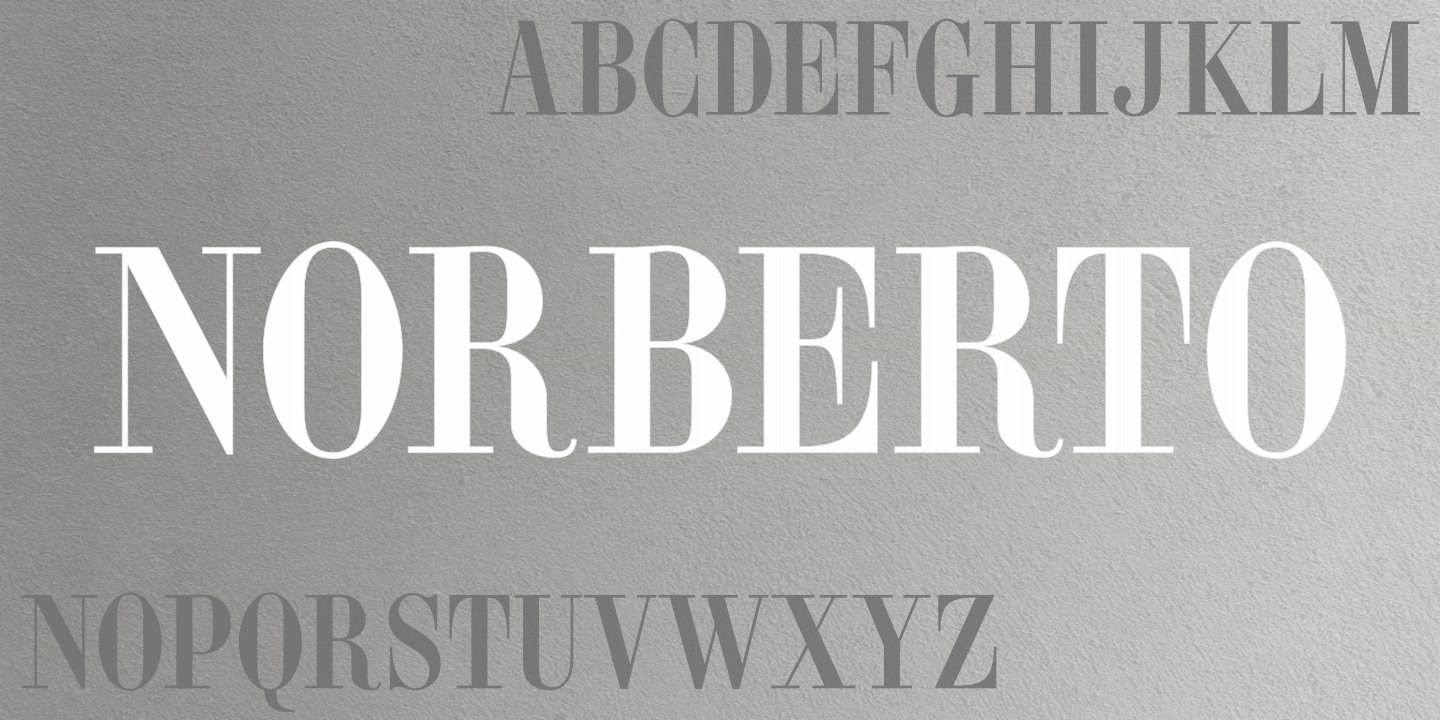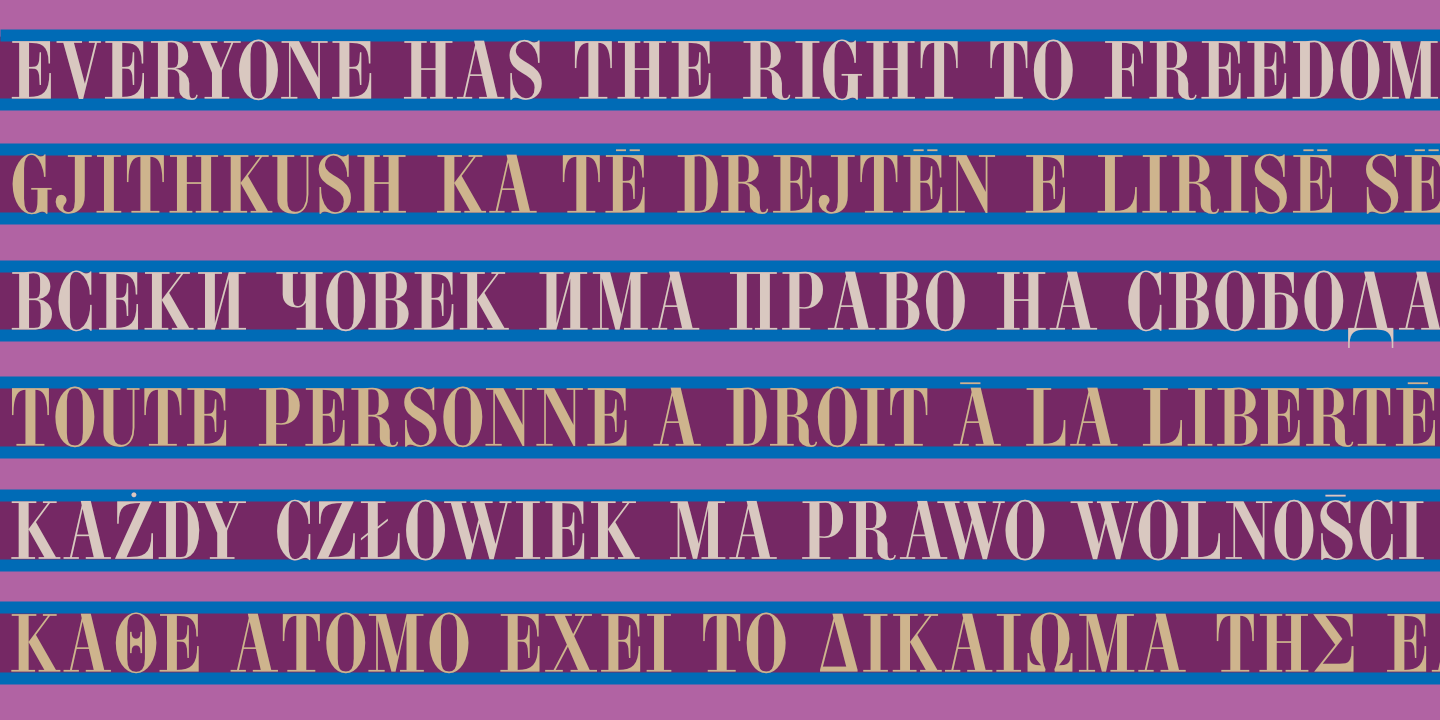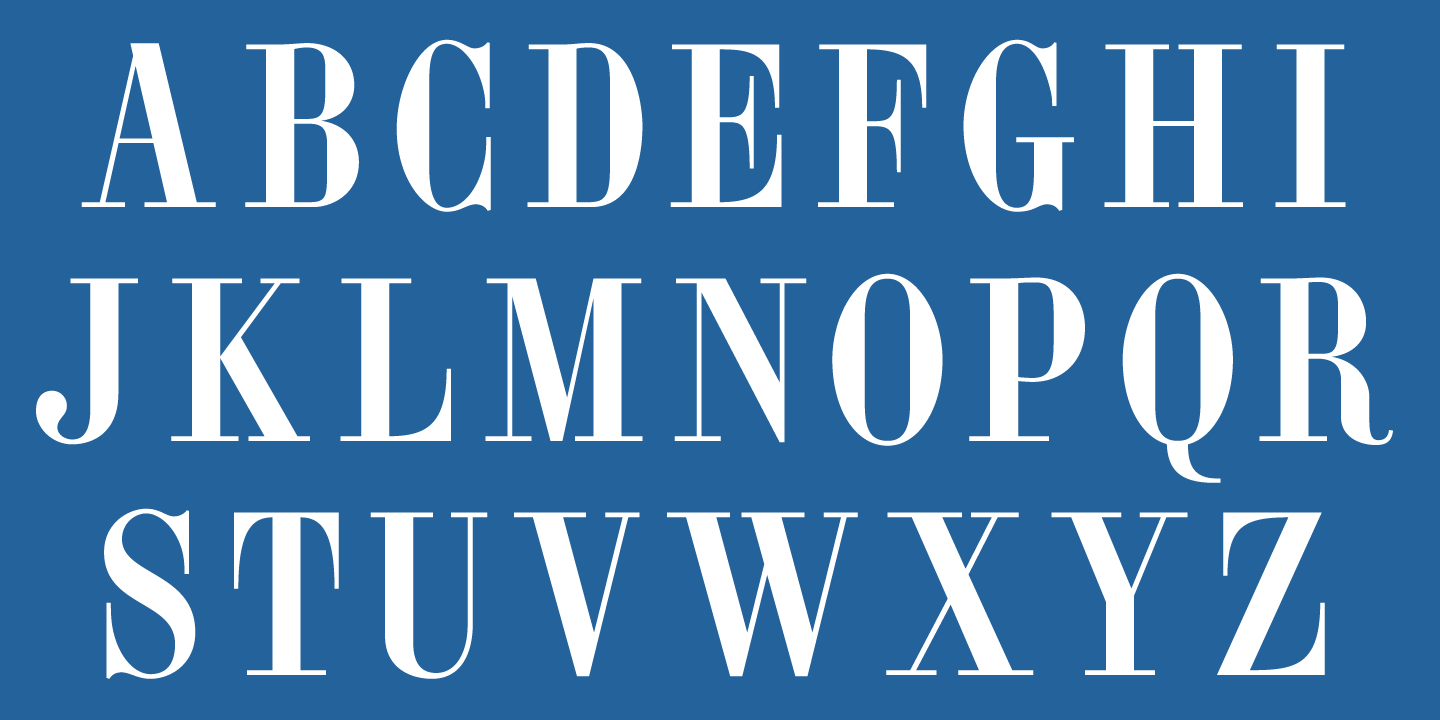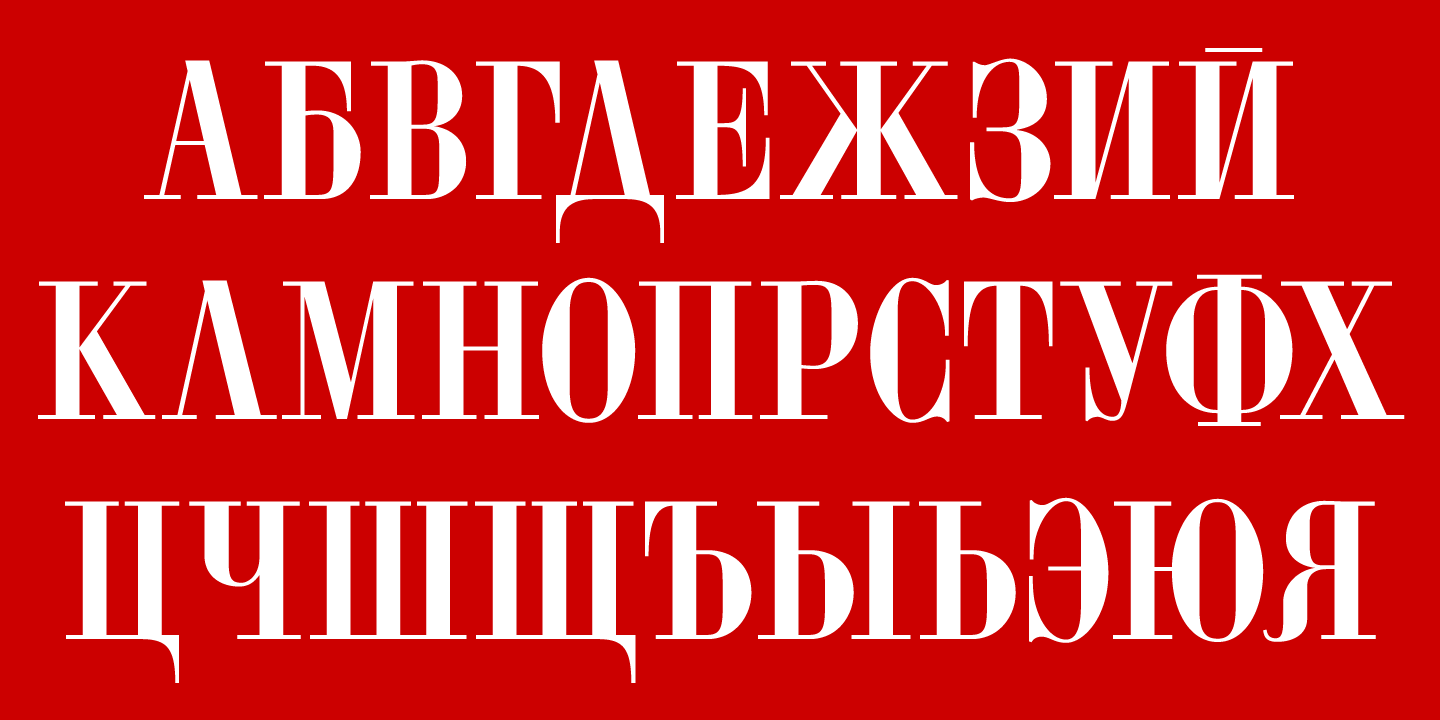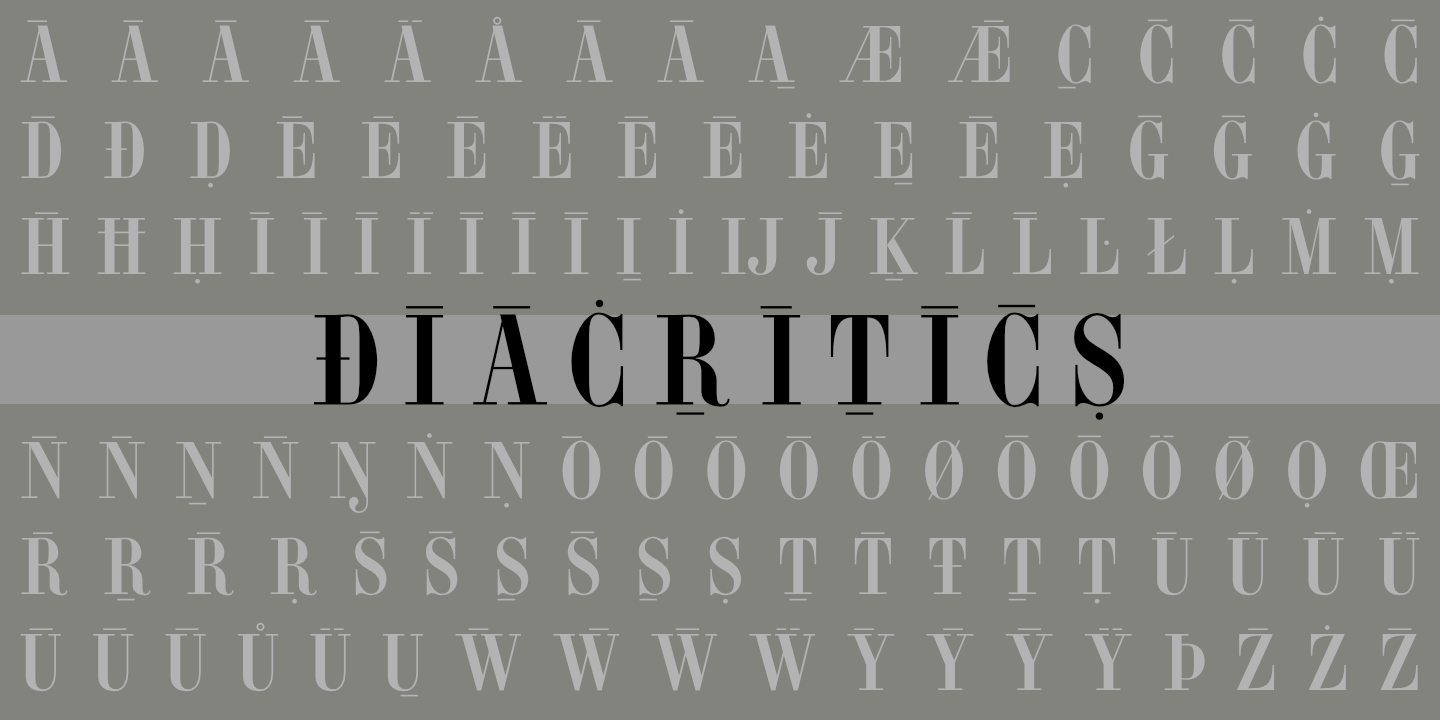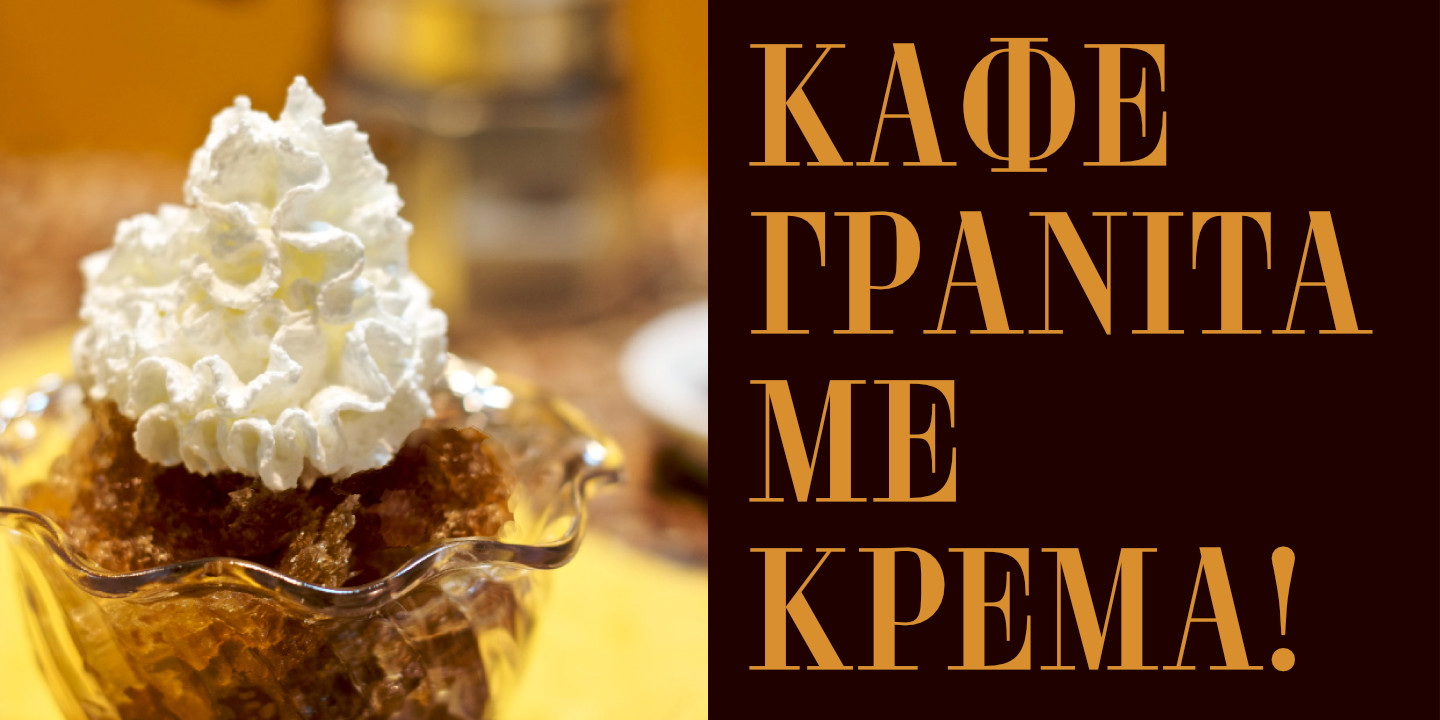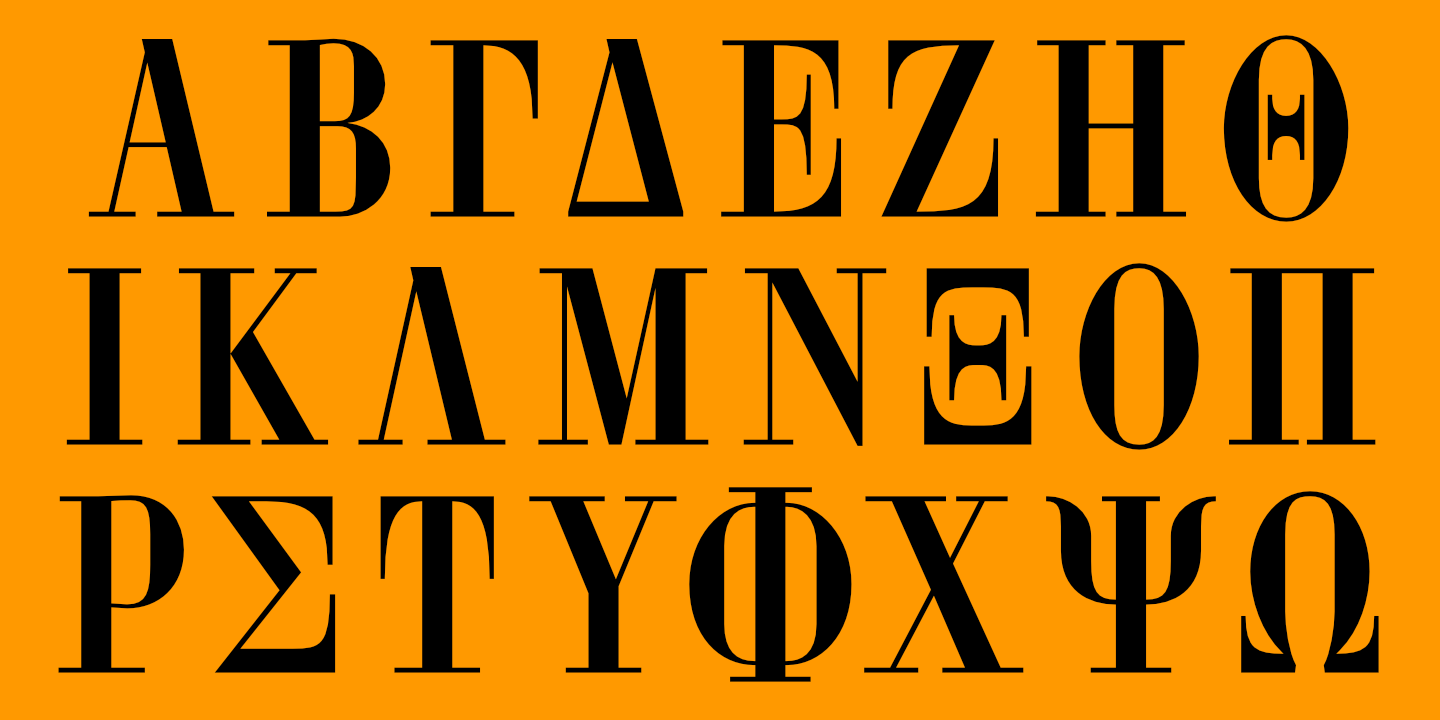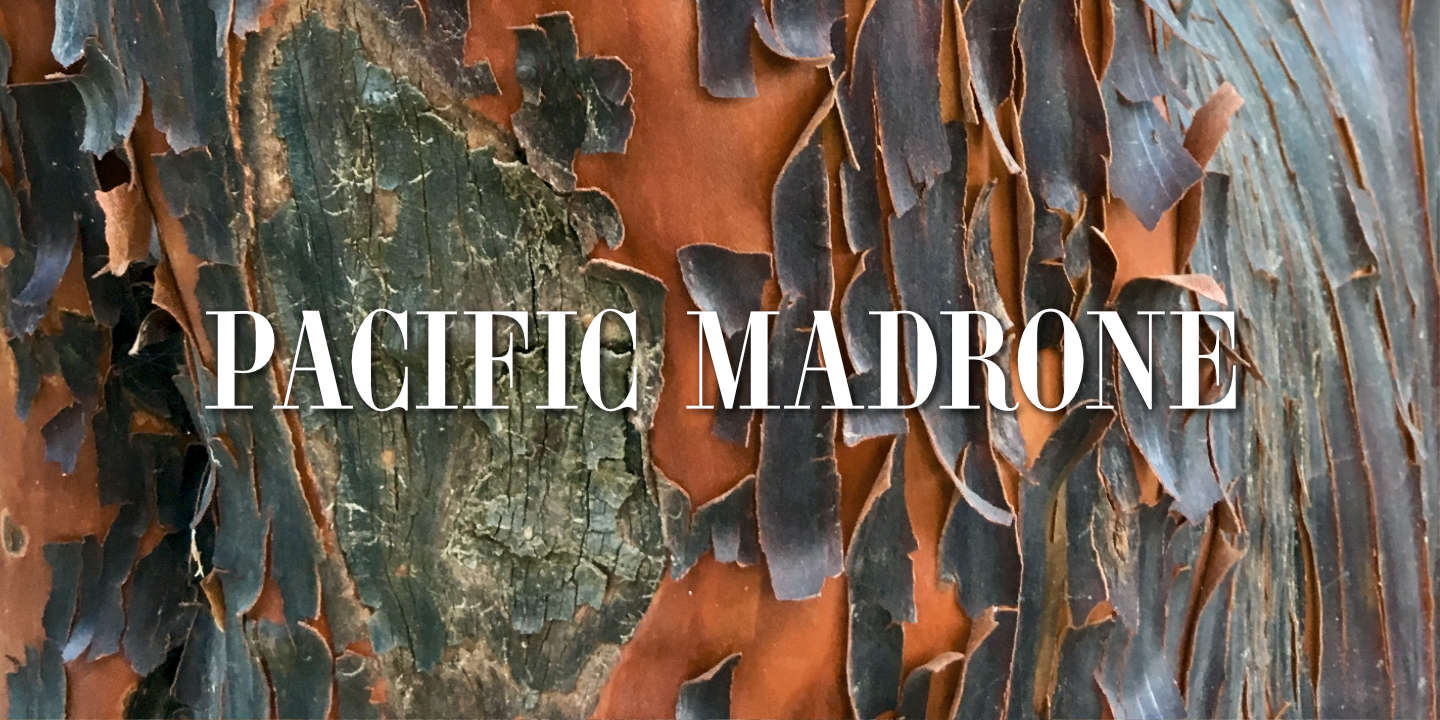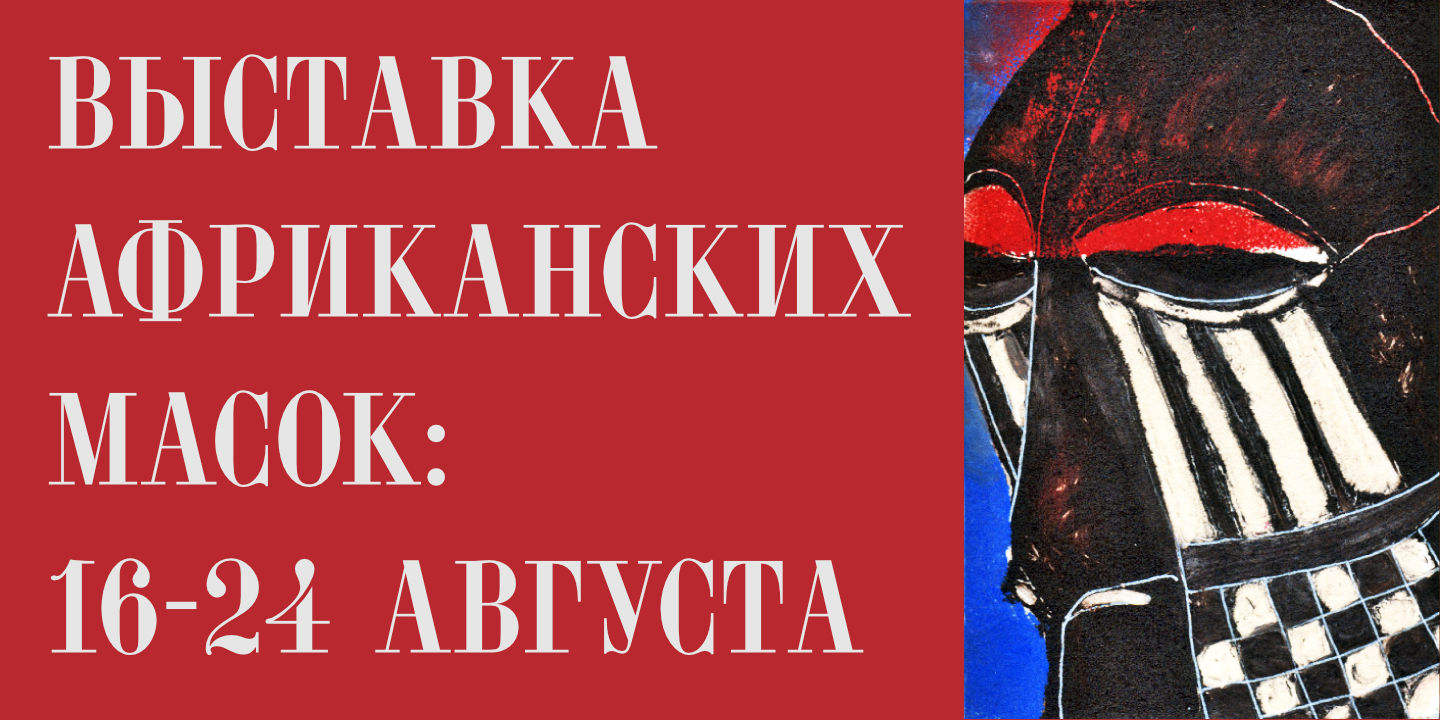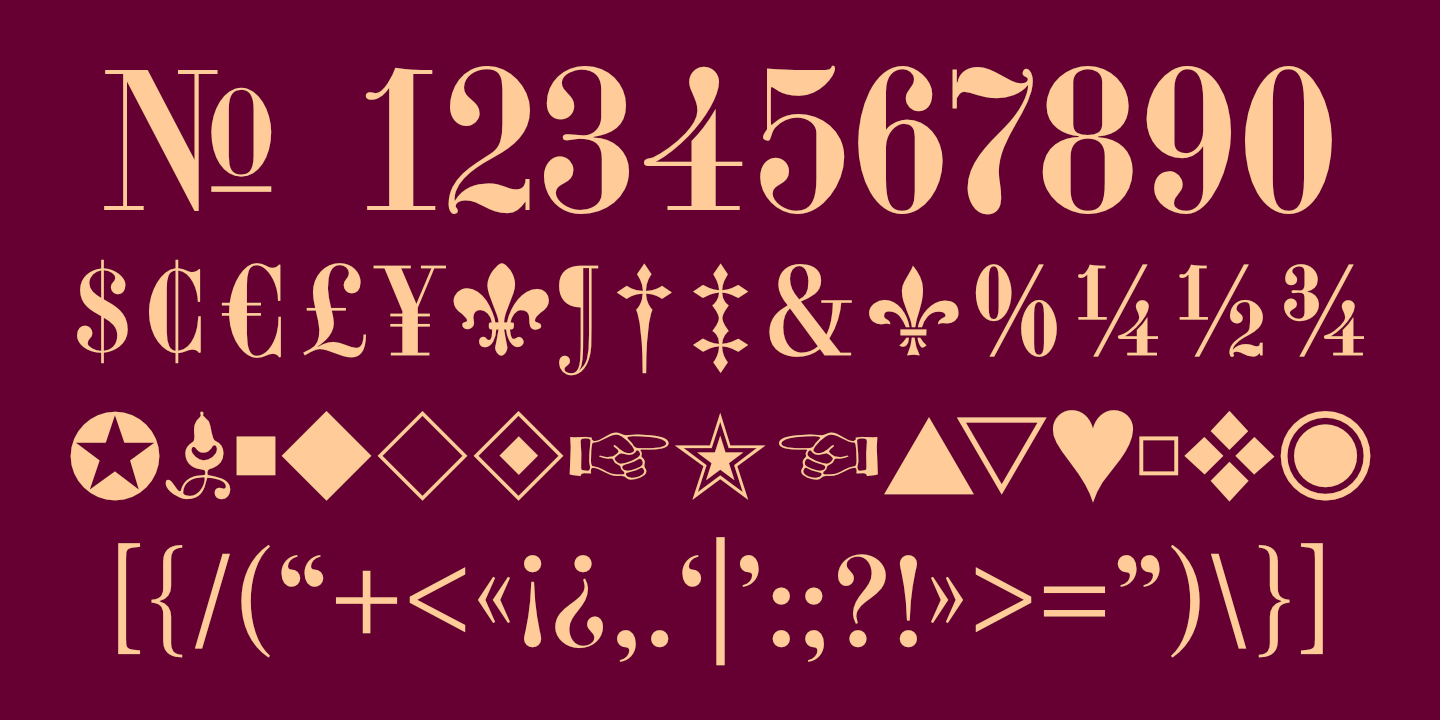
Basic Latin alphabet. Norberto supports most European languages. See Glyphs for details. blank
Norberto supports most languages that use the Cyrillic alphabet, such as Russian, etc. See Glyphs for details. blank
Norberto supports modern (monotonic) Greek. See Glyphs for details. blank
Norberto has charmingly quaint numerals.
Norberto supports most European languages.
Stacked Text
Notice that light text on a dark background appears slightly heavier than dark text on a light background. blank
Diacritics
Bodoni Brothers
The "Bodoni Brothers": A comparison of Dionisio, Norberto and Vincenzo with Bodoni 72 (in red). blank
Norberto, used here with Shàngó Sans Regular, in a mock-up of a cover for a book by Russian poet, Ilya Selvinsky. blank
Granita di caffè
Pink Camelia
Mask (Russian)